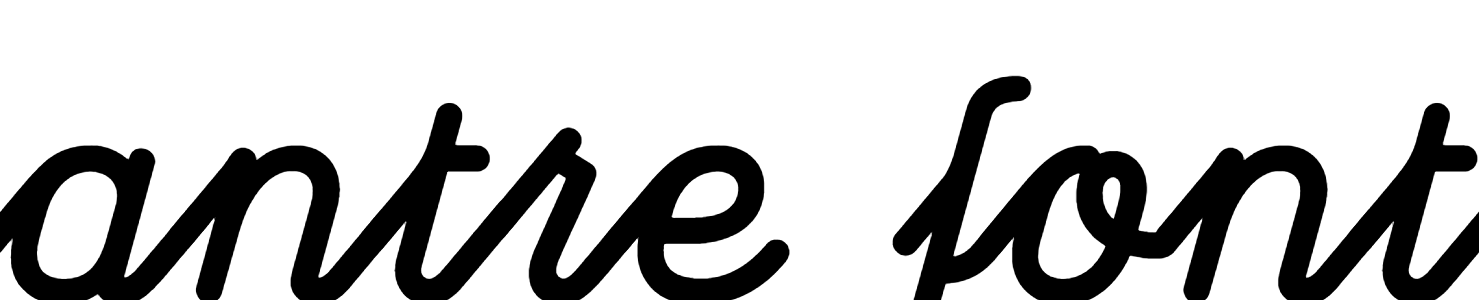
Antre
Antre is a handwritten font created by Taner Ardalı (2016). It has a casual, written-with-a-pen look that makes designs feel personal. It's a free download, and you can try it with your own text in the preview above first.
- Designer: Taner Ardalı
- Glyphs: 65
- OpenType features: Contextual alternates
What You Can Type With Antre
Antre covers the full alphabet in upper and lowercase, plus all ten numbers, so you can set names, dates and prices without switching fonts. Common punctuation such as &, !, ? and @ is included as well. It has 12 accented letters, but not the full set for Spanish or French, so test any non-English words first.
Ligatures and Smart Letters in Antre
Contextual alternates switch on by themselves: letters change shape to fit their neighbours, so repeated letters don't look copy-pasted. This works automatically in most design apps.
Where Antre Works Best
Think of Antre for greeting cards, journal pages and friendly social posts. Its lowercase letters are tall compared to the capitals, which keeps it readable at smaller sizes. Set it a bit larger than you would a normal text font. Handwriting styles lose their charm once they get too small to read comfortably.
Who designed Antre font?
Antre was designed by Taner Ardalı. The copyright line inside the font is dated 2016. You can find one more font by Taner Ardalı on DafontStyle, linked above.
Does Antre have ligatures?
Antre has no standard ligatures, but it has contextual alternates that change letter shapes automatically as you type.
Does Antre support accented letters?
Partly. Antre has 12 accented letters, but not the complete set for Spanish, French or German. Type your words in the preview above to check before you use it.